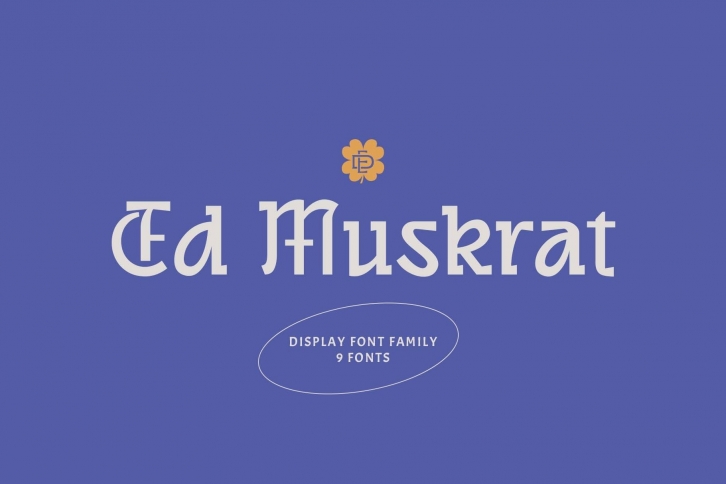
ED Muskrat is a beautiful font that was designed by Emyself design. It's a great choice for designers and creatives who need such a font. It was released on March 27, 2021 and the file size is 18.93 MB. ED Muskrat may give a more youthful, expressive and casual look to your project. It is a very beautiful, refined, elegant, and high-quality font.